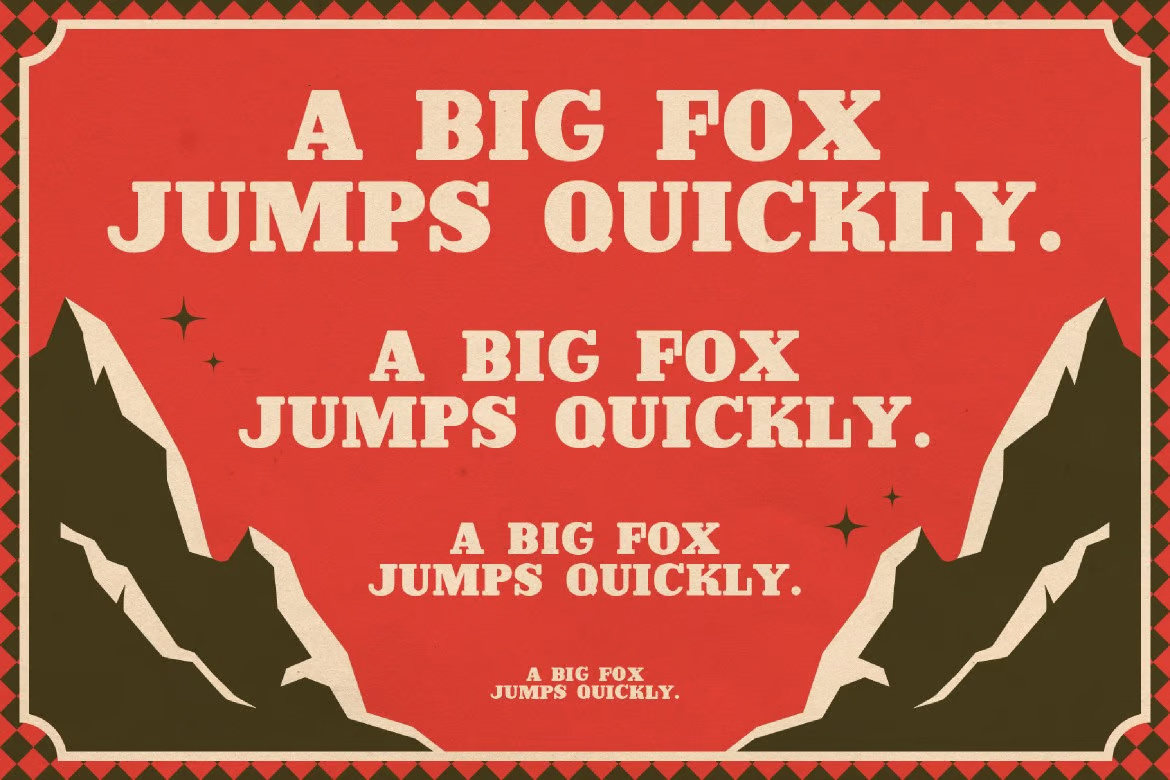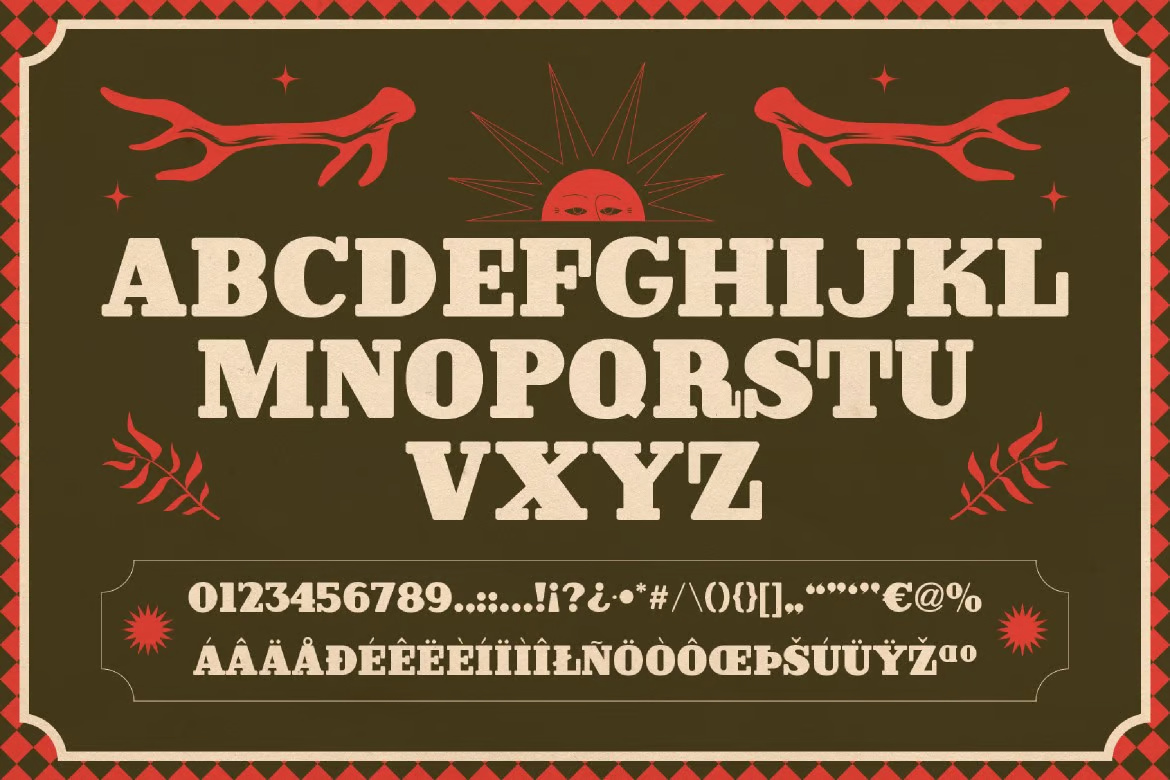
Slabdisp Font
Slabdisp is a robust slab serif font infused with an elegant vintage style. Its strong and bold presence ensures excellent readability across various text applications, making it a versatile choice for headlines, subheadlines, and even body text.
With its timeless charm and sturdy letterforms, Slabdisp seamlessly blends classic and modern aesthetics, making it perfect for branding, editorial design, and any project that requires a bold yet refined typographic statement.
Slabdisp Serif Font